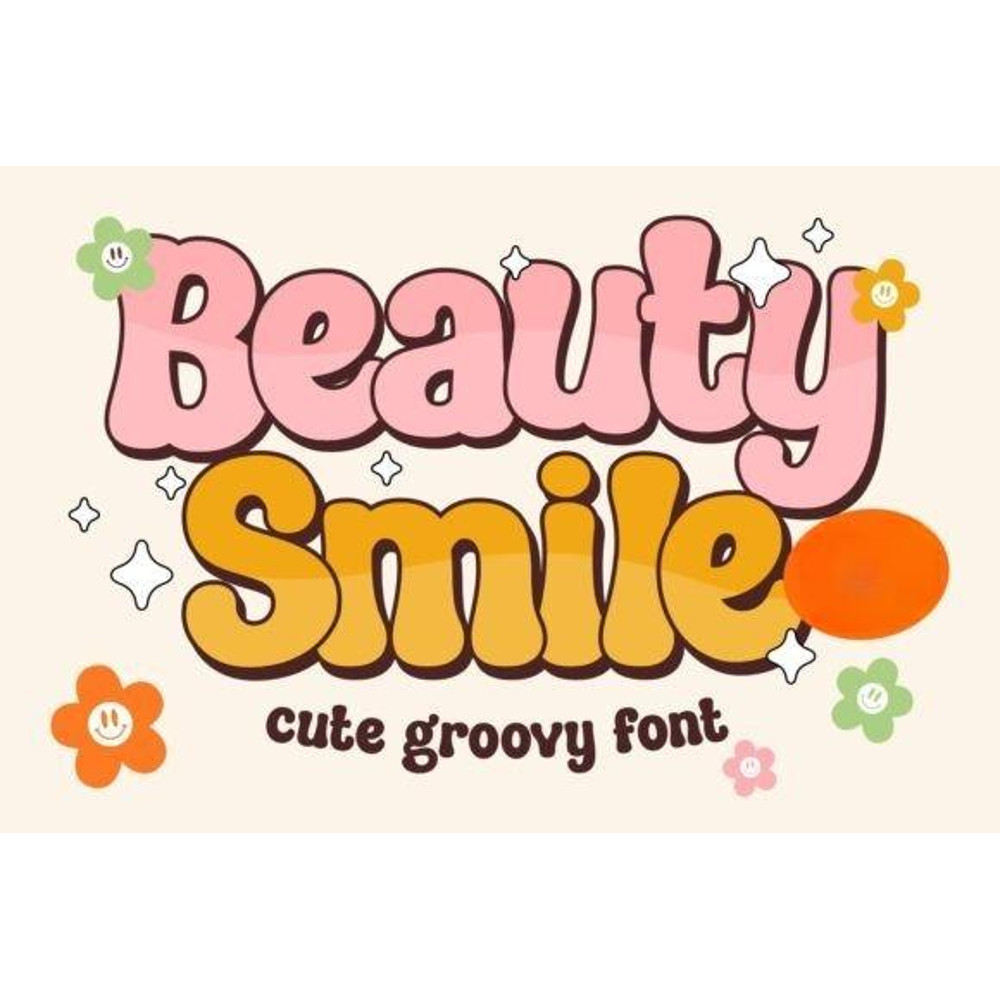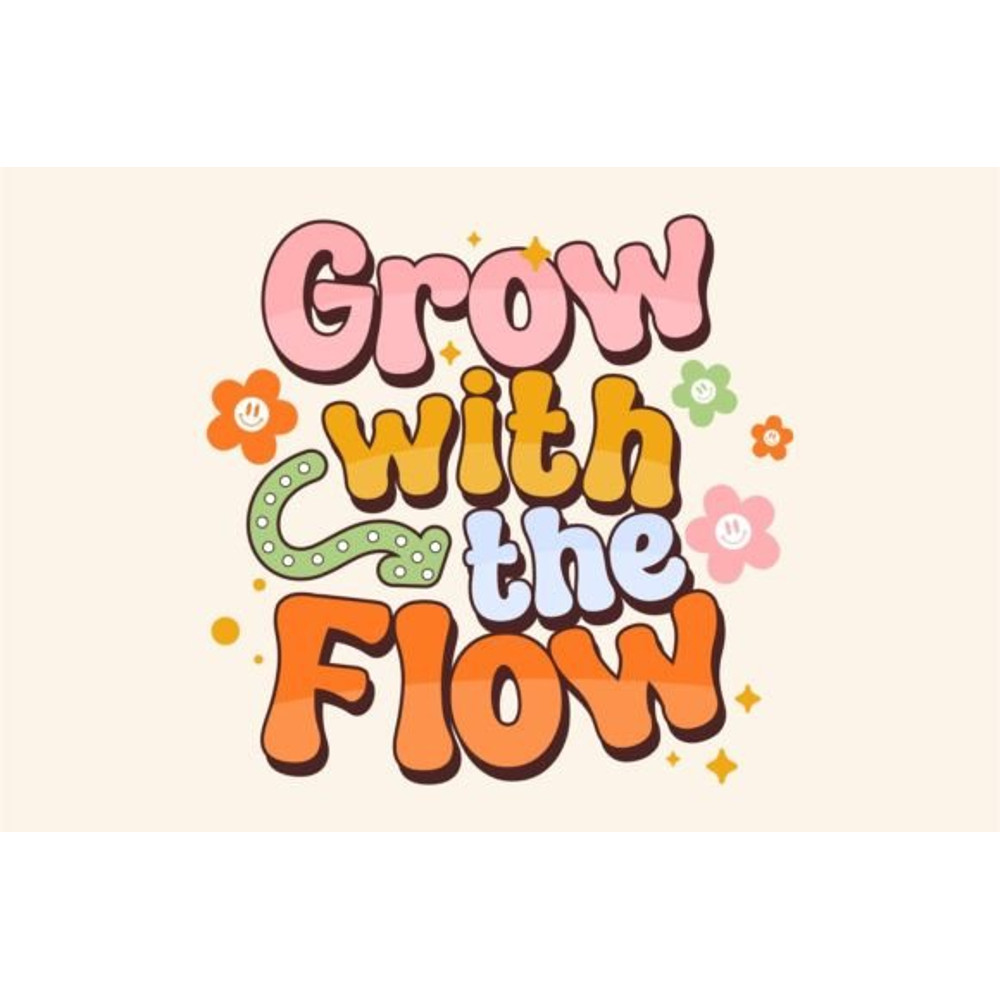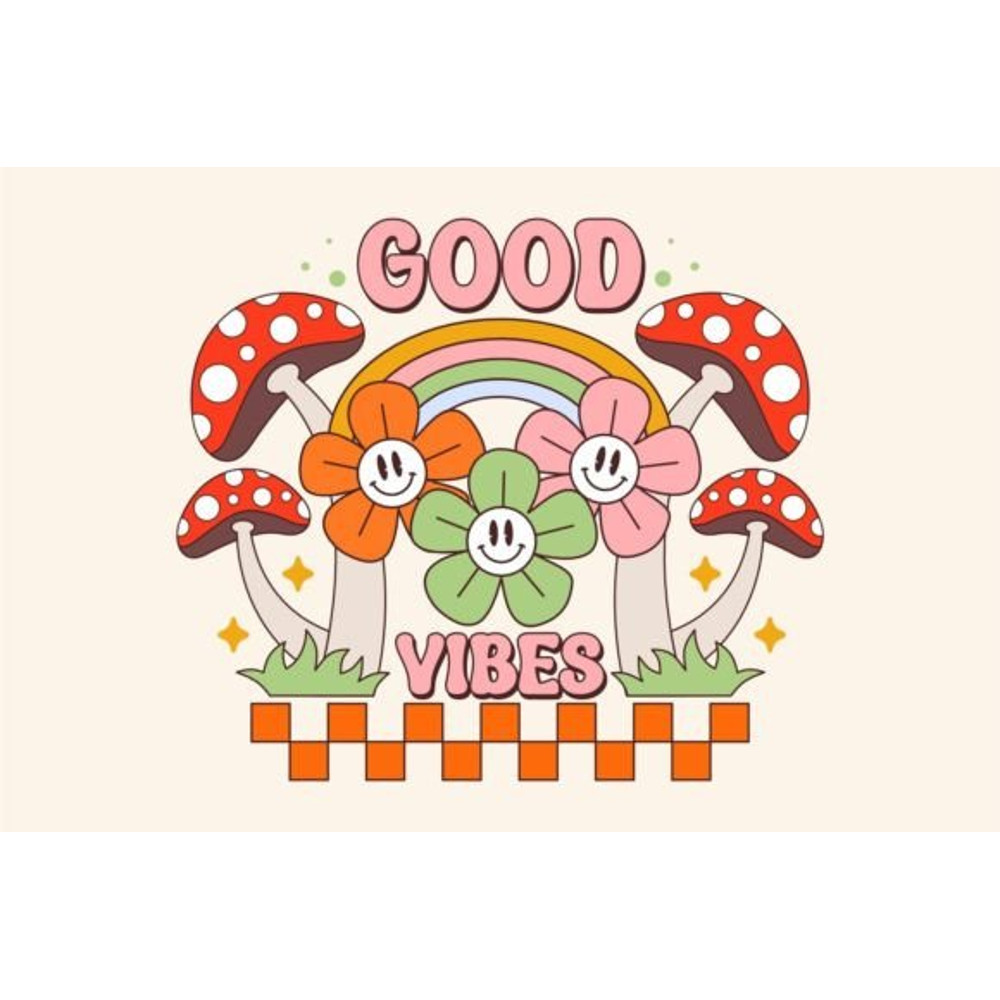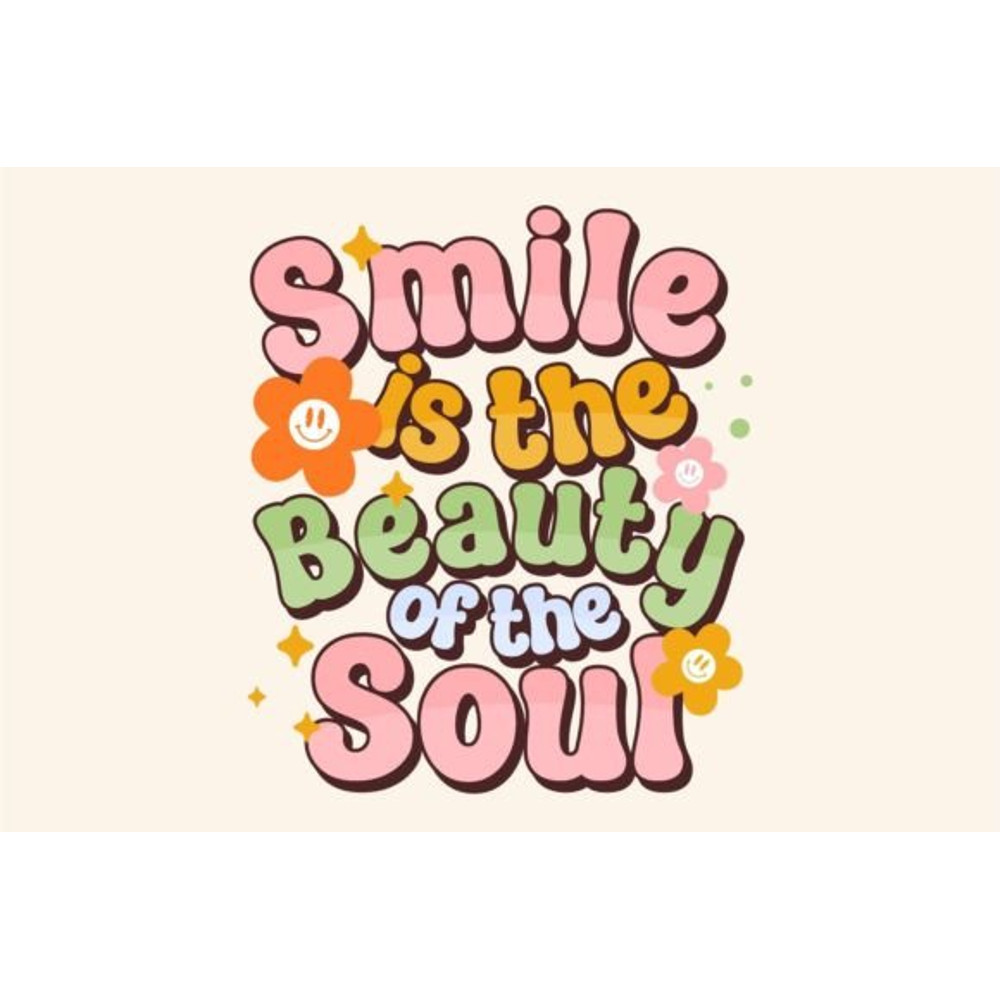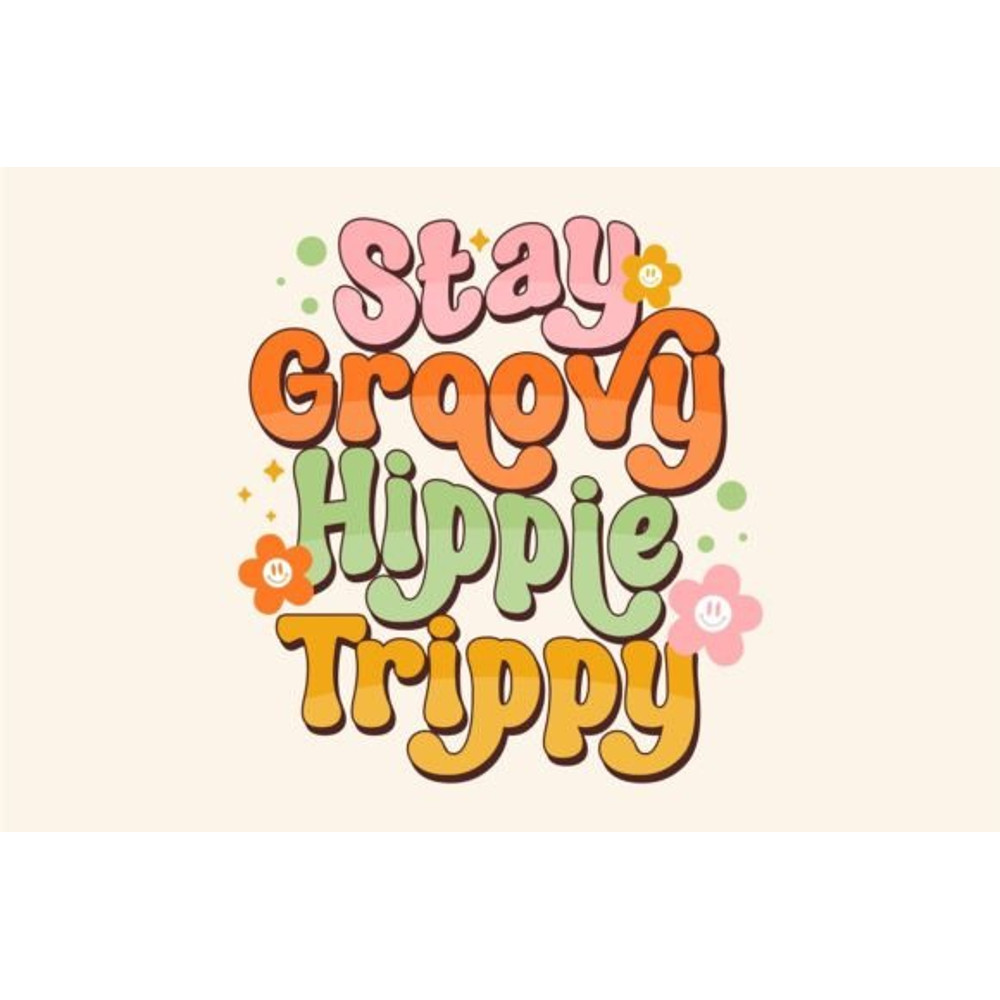
Beauty Smile Font
Beauty Smile is a fun and cute groovy font, inspired by retro bold typography. This font is perfect for a design that requires a playful and fun accent. Beauty Smile is suitable for book covers, posters, packaging, merchandise, logotype, and much more. perfect for designs that want to bring a playful and carefree spirit to their projects